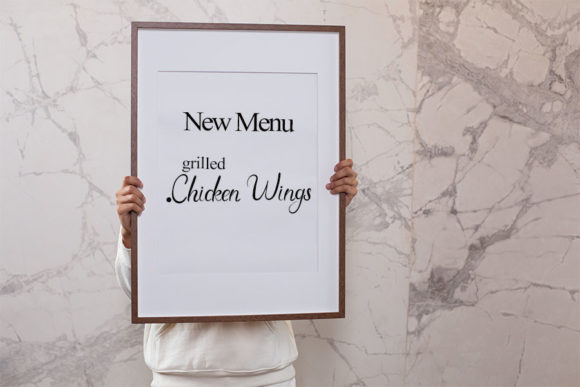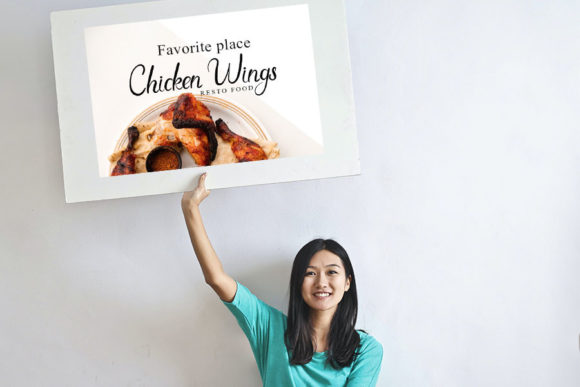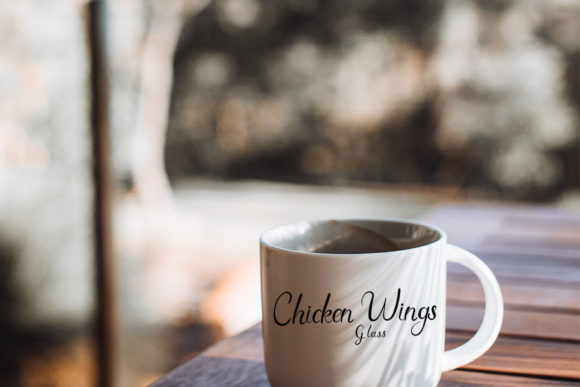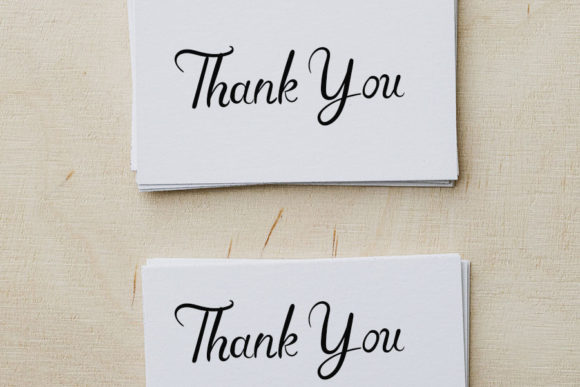
Chicken Wings Font
About Chicken Wings Font
Chicken Wings is a trendy and chic lettered script font. Whether you’re using it for crafting, digital designing, presentations or greeting cards making, it’s perfect!